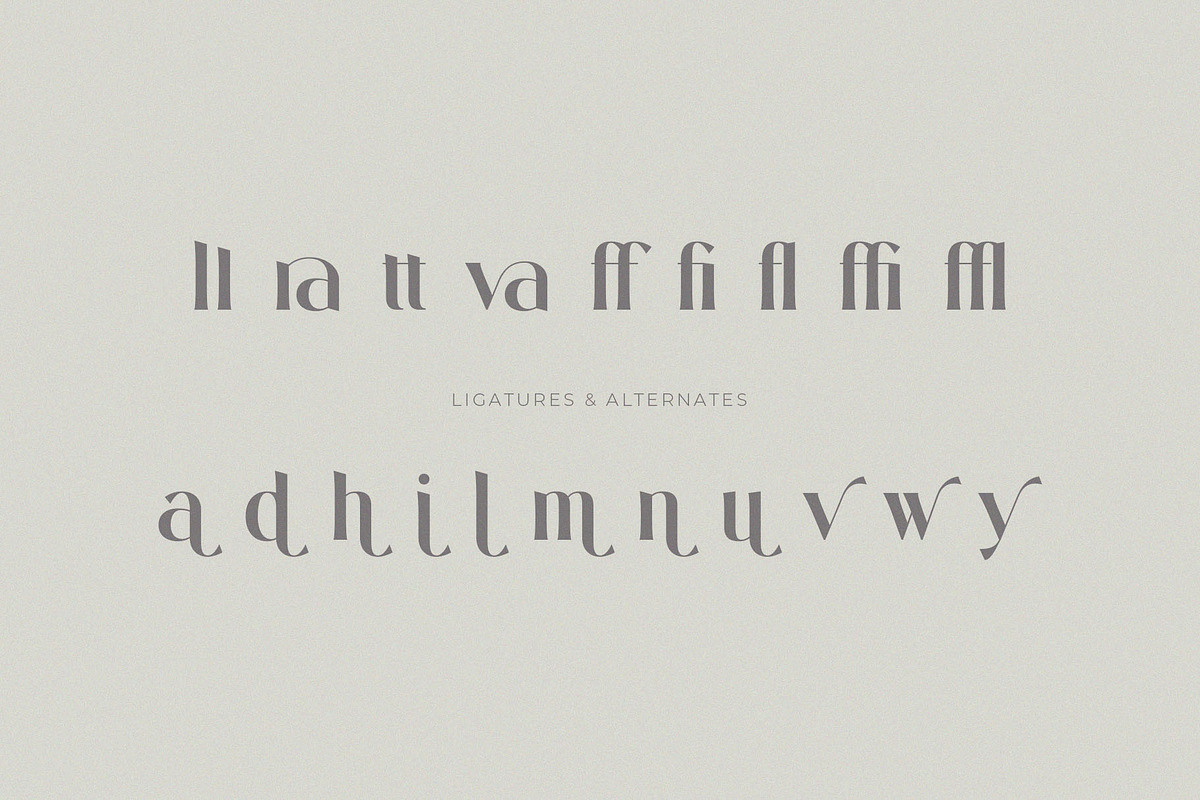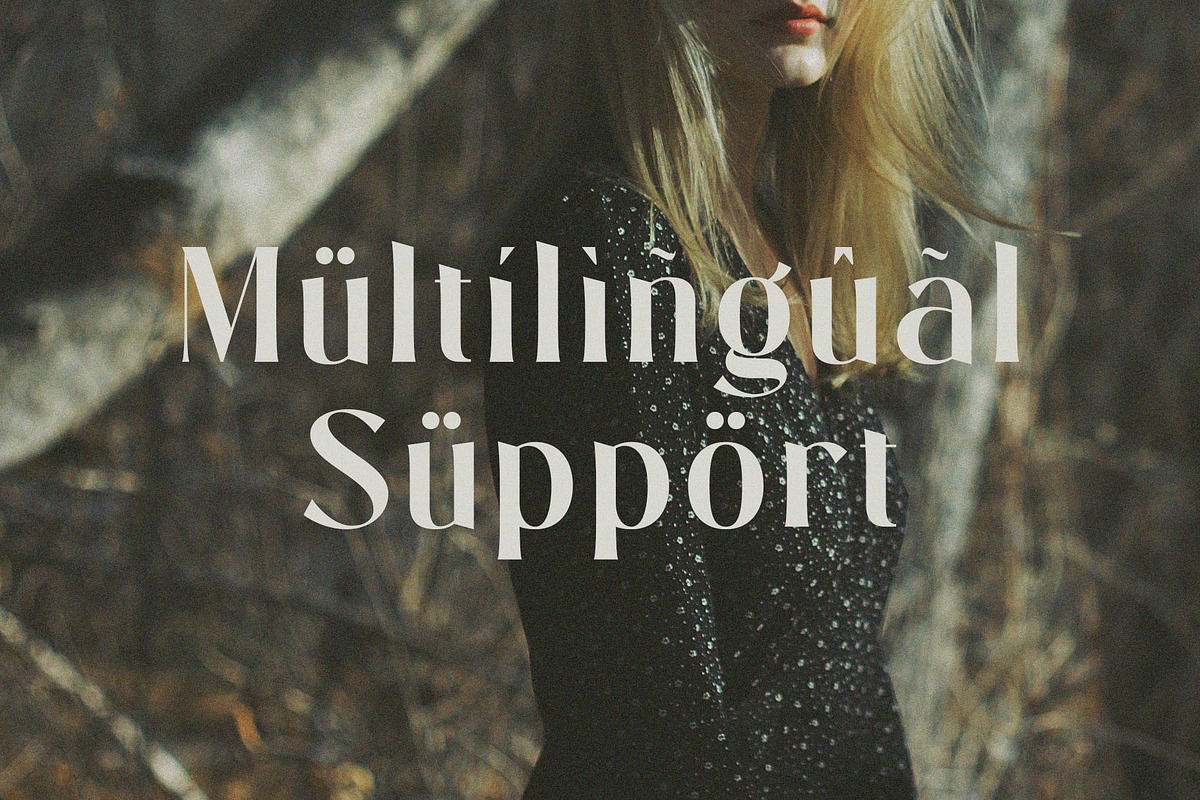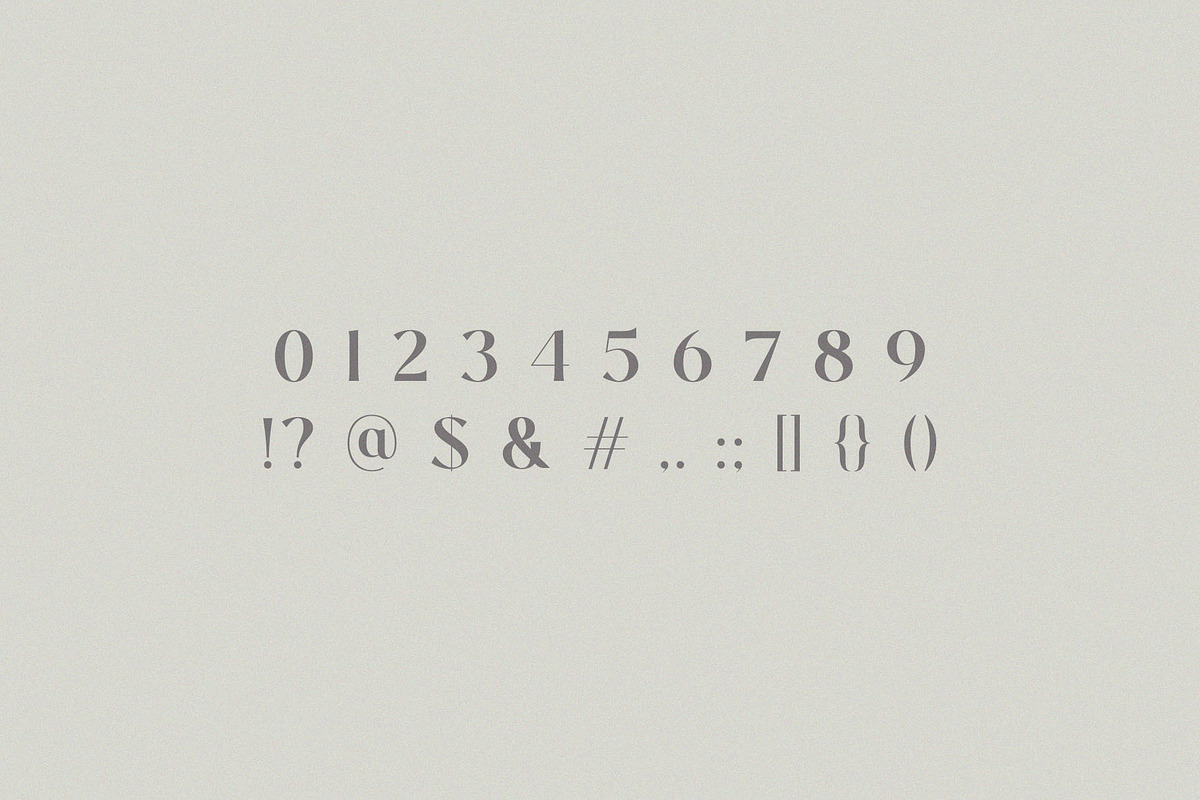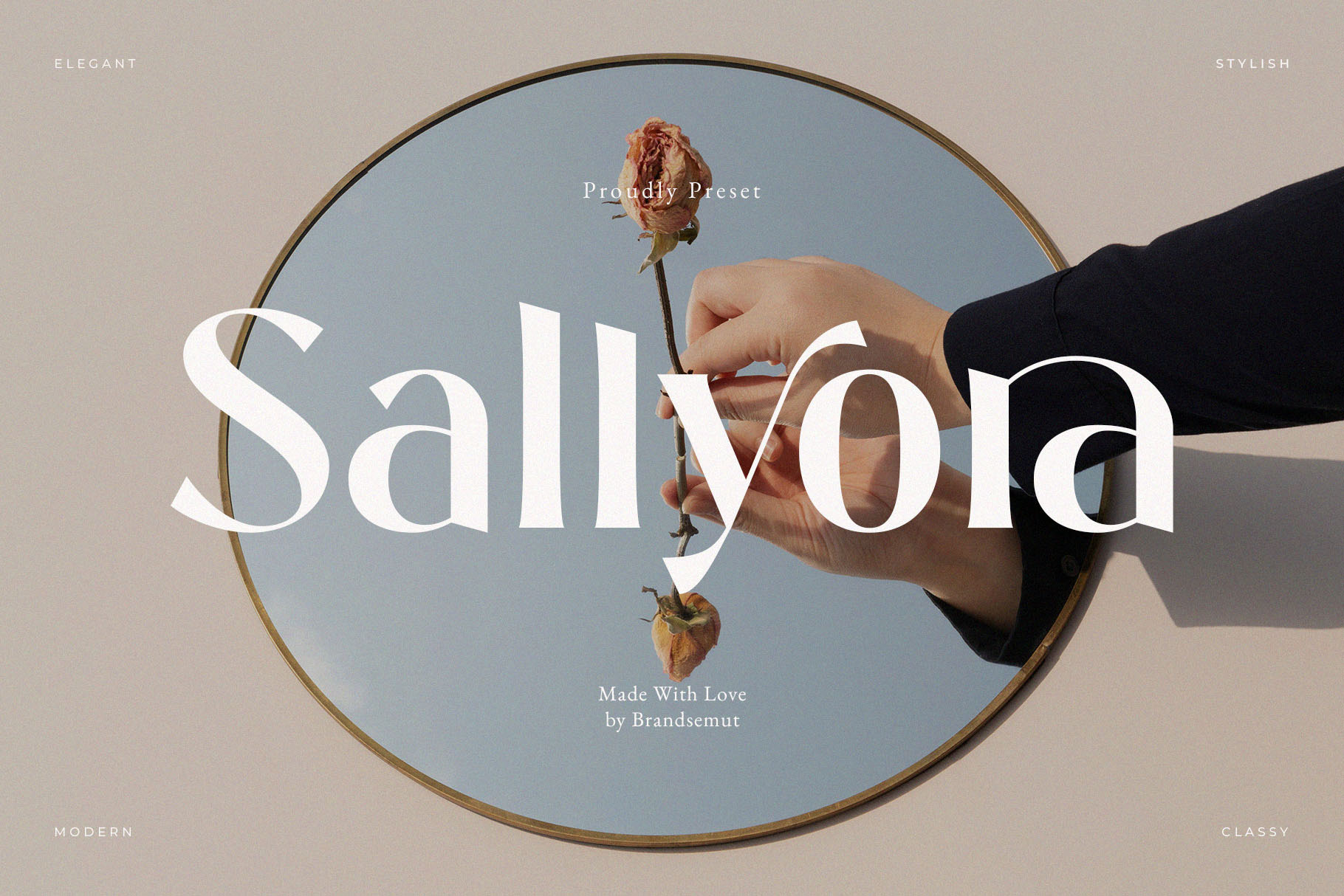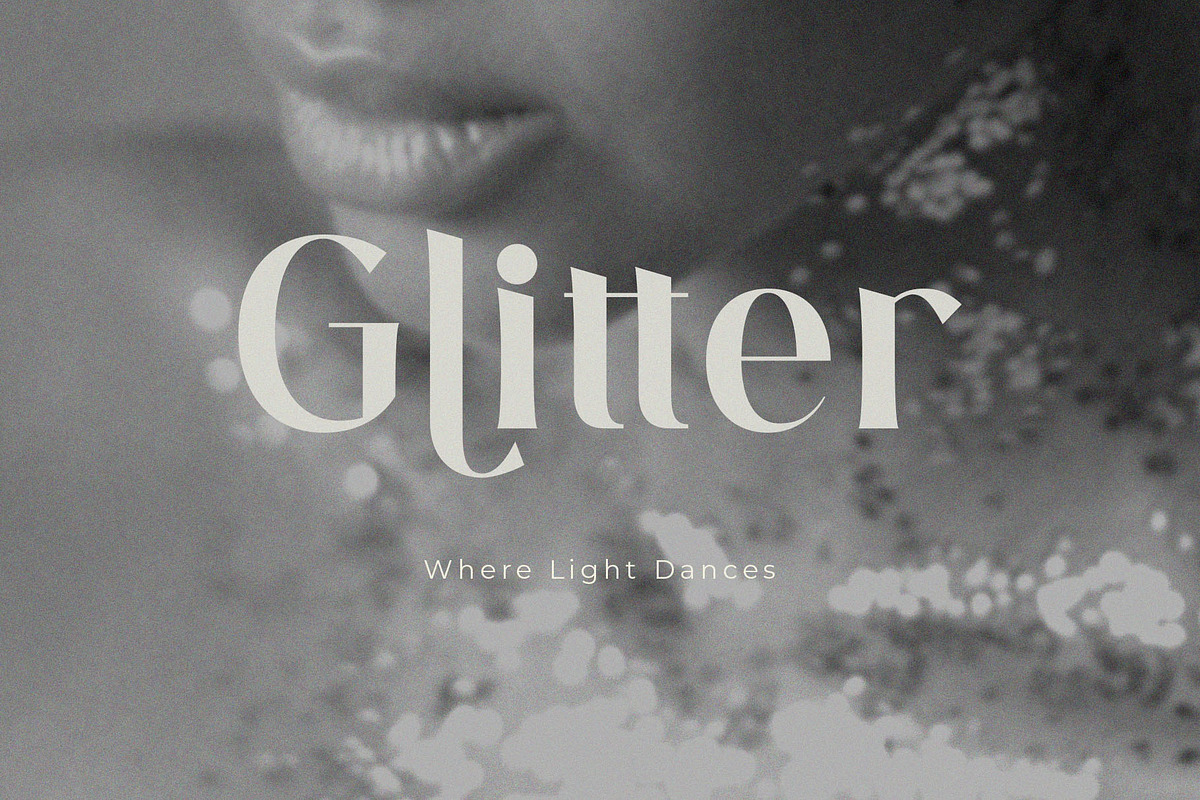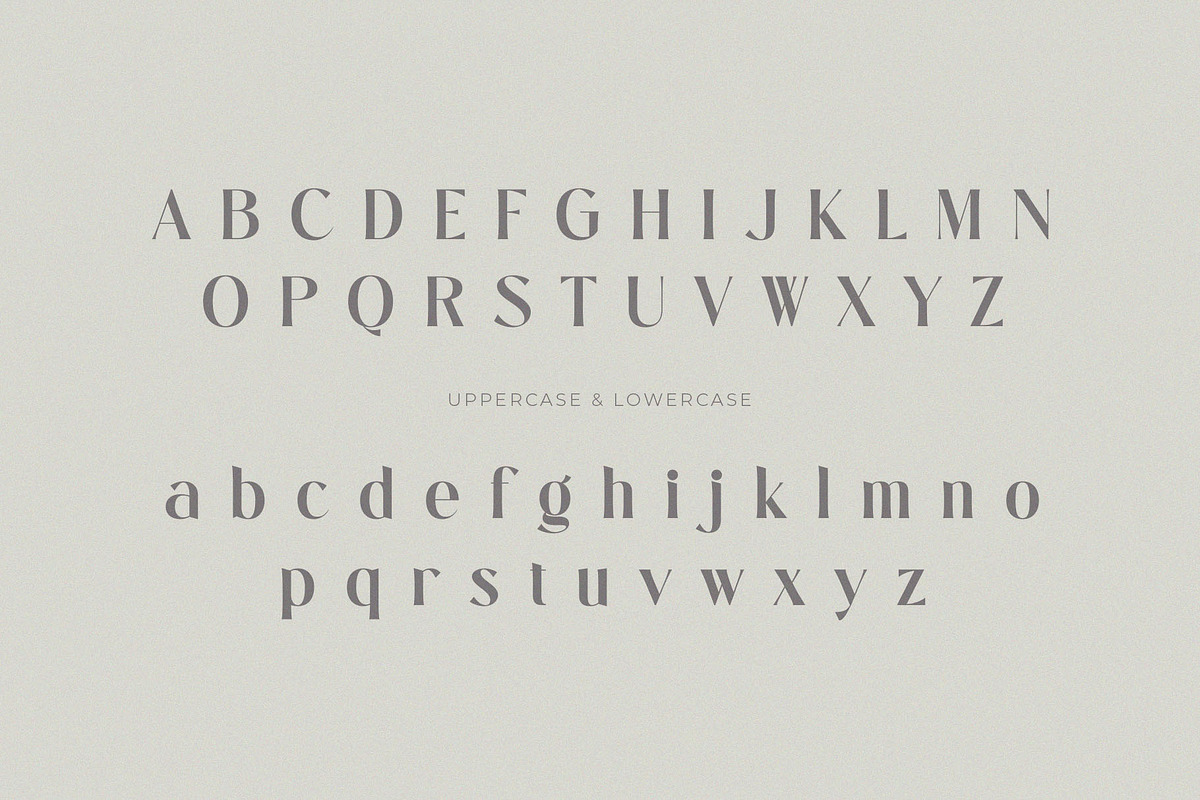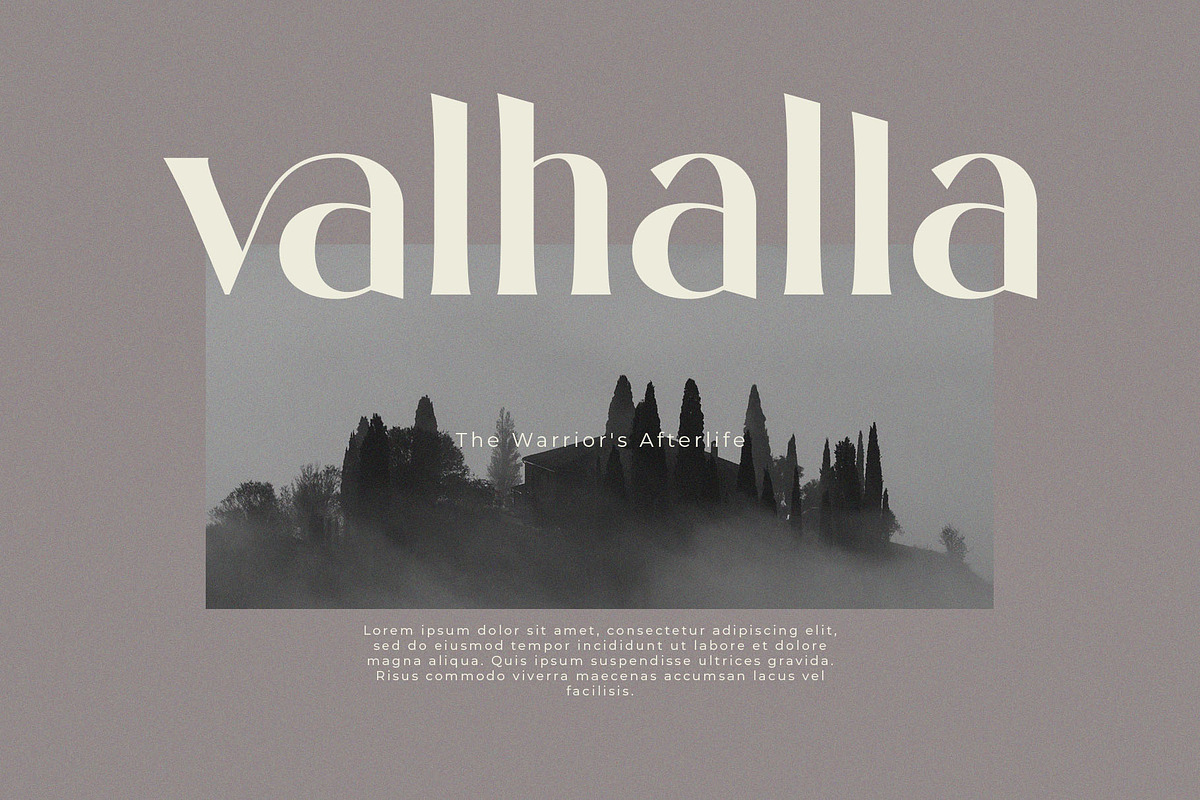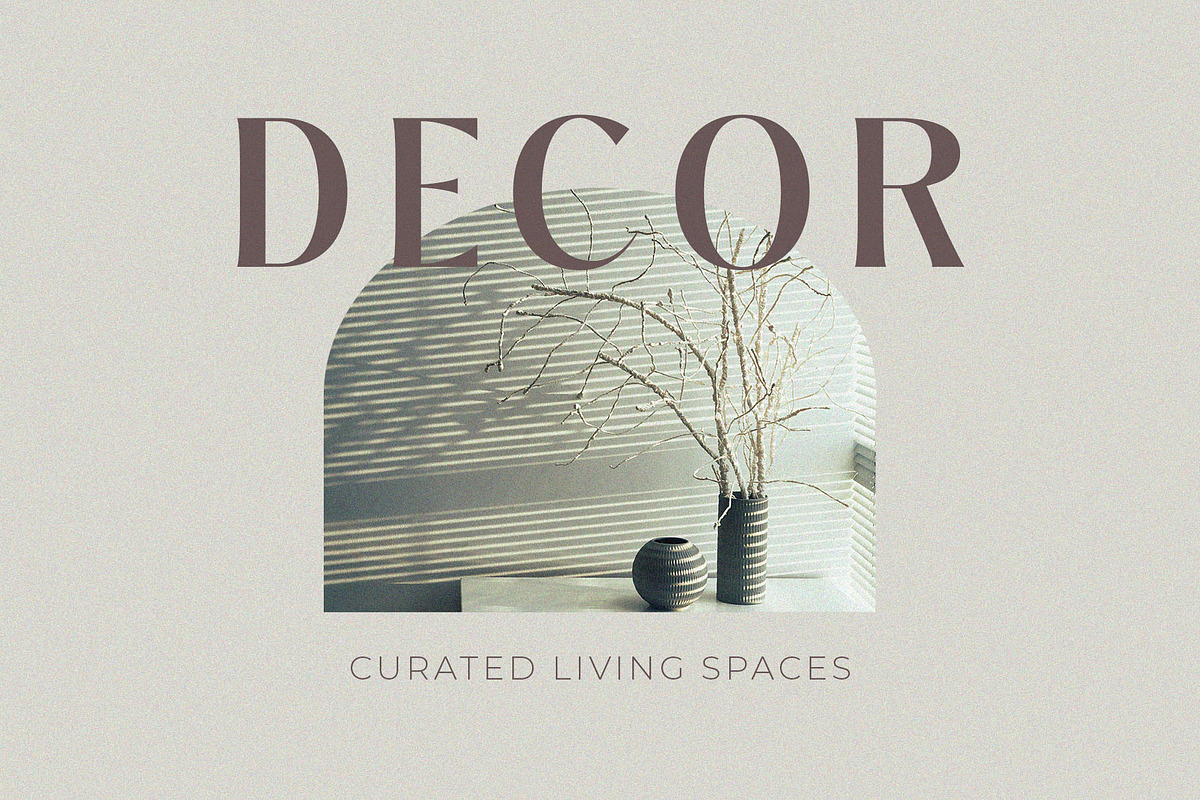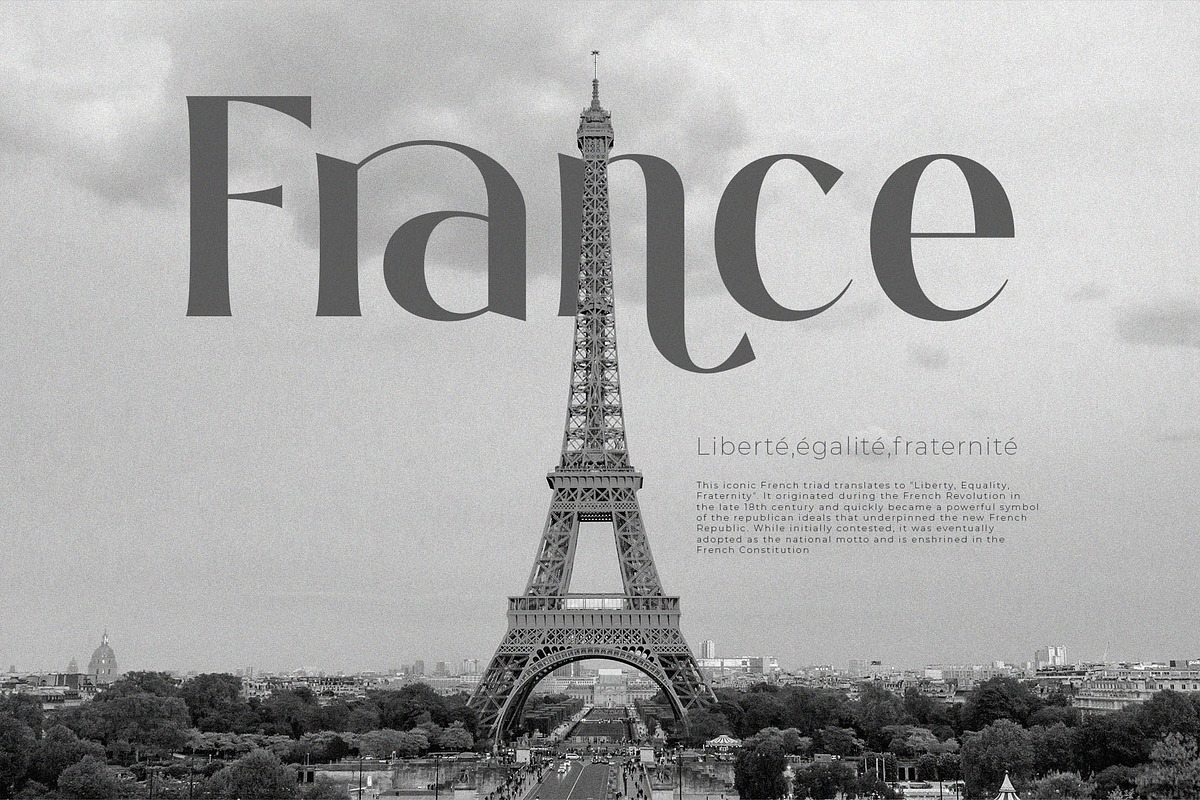
Sallyora – Stylish Modern Serif Font
Sallyora – Stylish Modern Serif Font with Uppercase & Lowercase for Elegant Branding & Editorial Design
Sallyora is a stylish modern serif font crafted to bring elegance, warmth, and sophistication to your creative projects. Featuring beautifully designed uppercase and lowercase letters, Sallyora combines classic serif tradition with contemporary flair — making it ideal for luxury branding, wedding invitations, beauty packaging, lifestyle editorials, and Instagram quotes.
With its high contrast strokes, gentle curves, and subtle artistic swashes, Sallyora stands out as a refined yet approachable serif typeface that elevates any design it touches.
- Feminine branding & beauty logos
- Editorial layouts & magazine covers
- Wedding invitations & stationery
- Social media posts & quotes
- High-end product packaging
- Uppercase & lowercase characters
- Elegant ligatures and stylistic alternates
- Soft curves with clean modern structure
- Perfect for print and digital media
Infuse your design with timeless class and graceful charm using Sallyora — a modern serif that speaks beauty, clarity, and creativity.